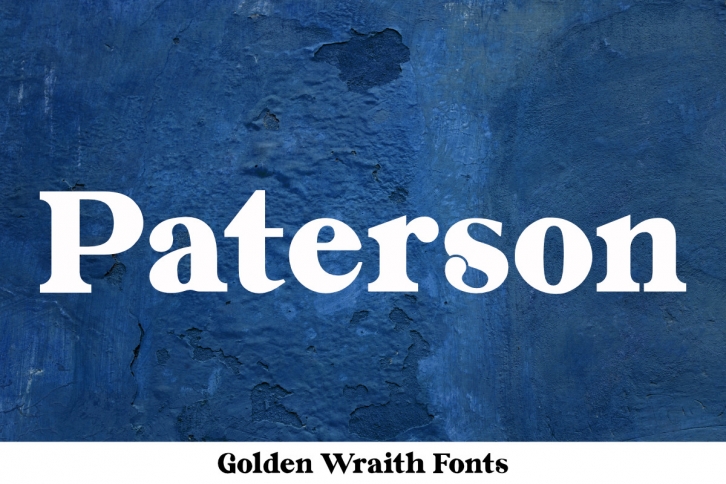
Paterson is a cool, stylish and paint brushed serif font. It has a beautiful and balanced character, that fits well with the large design pool. This font is PUA encoded which means you can access all of the glyphs and swashes with ease.